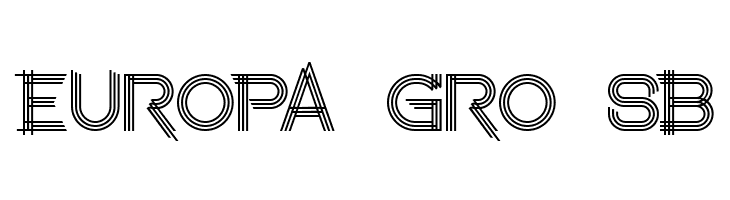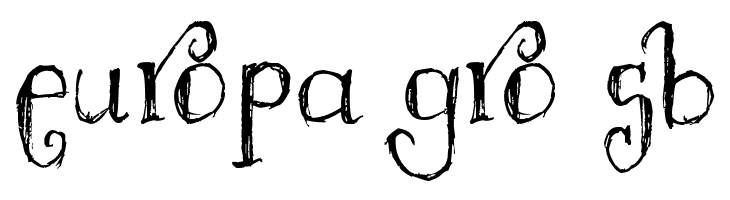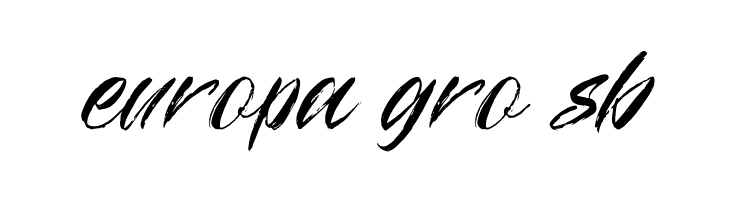
A geometric, minimalist font with clean lines and angular shapes.
A geometric, minimalist font with a modern and technical style.
A geometric, angular font with a modern, slanted design.
A geometric and structured font with sharp angles and a modern appearance.
A geometric, angular font with a modern, slanted design.
A handcrafted, artistic font with a vintage flair and modern twist.
A bold, textured serif font with a handcrafted appearance.
A thin, hand-drawn serif font with an elegant and organic style.
An ornate, decorative font with intricate swirls and vintage calligraphic style.
A modern, multi-line geometric font with a bold and artistic style.
A bold, cursive script font with elegant, flowing characters.
A bold, dynamic font with brush-like strokes, perfect for manga-inspired designs.
A dynamic and energetic script font with fluid, cursive strokes and a hand-drawn appearance.
A playful, hand-drawn font with rounded, consistent strokes.
A playful, bold, and rounded font with smooth letterforms.
A bold, rounded font with a playful and approachable style.
A playful, handwritten-style font with rounded edges and consistent stroke thickness.
A dynamic, expressive handwritten font with fluid, irregular strokes.
A dynamic, expressive handwritten font with fluid, organic strokes.
A charming, handwritten cursive font with smooth, flowing curves.
A bold, geometric font with unique letterforms and strong visual impact.
A playful, bold font with rounded, bubble-like characters and unique cutouts.
A playful, handwritten font with bold strokes and a casual style.
A graceful script font with fluid, connected cursive strokes.
An elegant script font with flowing, cursive letterforms and ornate details.
Intricate maze patterns replace traditional letterforms for a unique, decorative style.
A bold, cityscape-themed font with high contrast and dramatic style.
A modern, geometric font with clean lines and a thin weight.
A graceful and elegant script font with flowing, handwritten strokes.
A meme-inspired decorative font made from rage comic faces.
A modern, geometric font with clean lines and a minimalist style.
An elegant script font with high contrast and flowing, cursive style.
An elegant script font with flowing, cursive letterforms and classic sophistication.